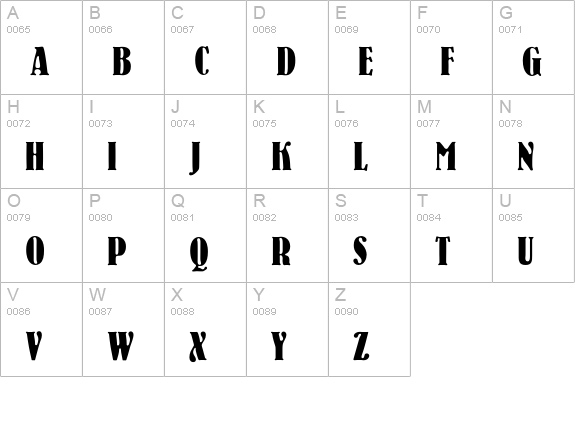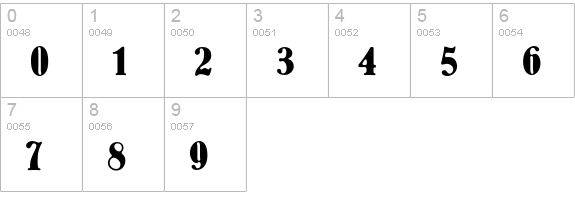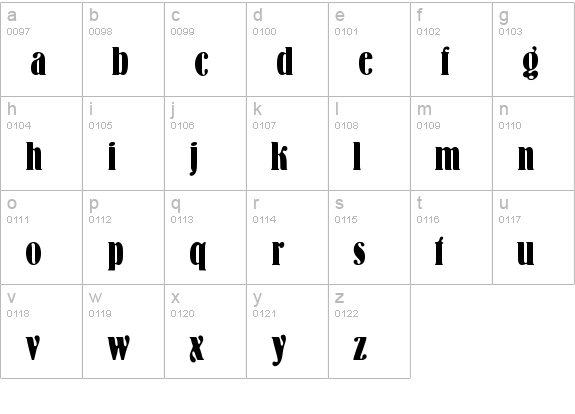
PT Bernhard Cyrillic Font Details
PT Bernhard Cyrillic font is a classic and elegant typeface that exudes sophistication and style. With its timeless appeal and beautiful design, this font is perfect for a wide range of projects, from branding and marketing materials to invitations and greeting cards. The Cyrillic characters add a unique touch to any text, making it stand out and capture attention. The best part about PT Bernhard Cyrillic font is that it is completely free to download at FontsMarket.com. This means that you can easily access this stunning font and use it in your designs without any cost. Whether you are a professional designer or just looking to add a touch of class to your personal projects, PT Bernhard Cyrillic font is a versatile and stylish choice that will elevate your work to the next level. Download it today and enhance your designs with this beautiful typeface.